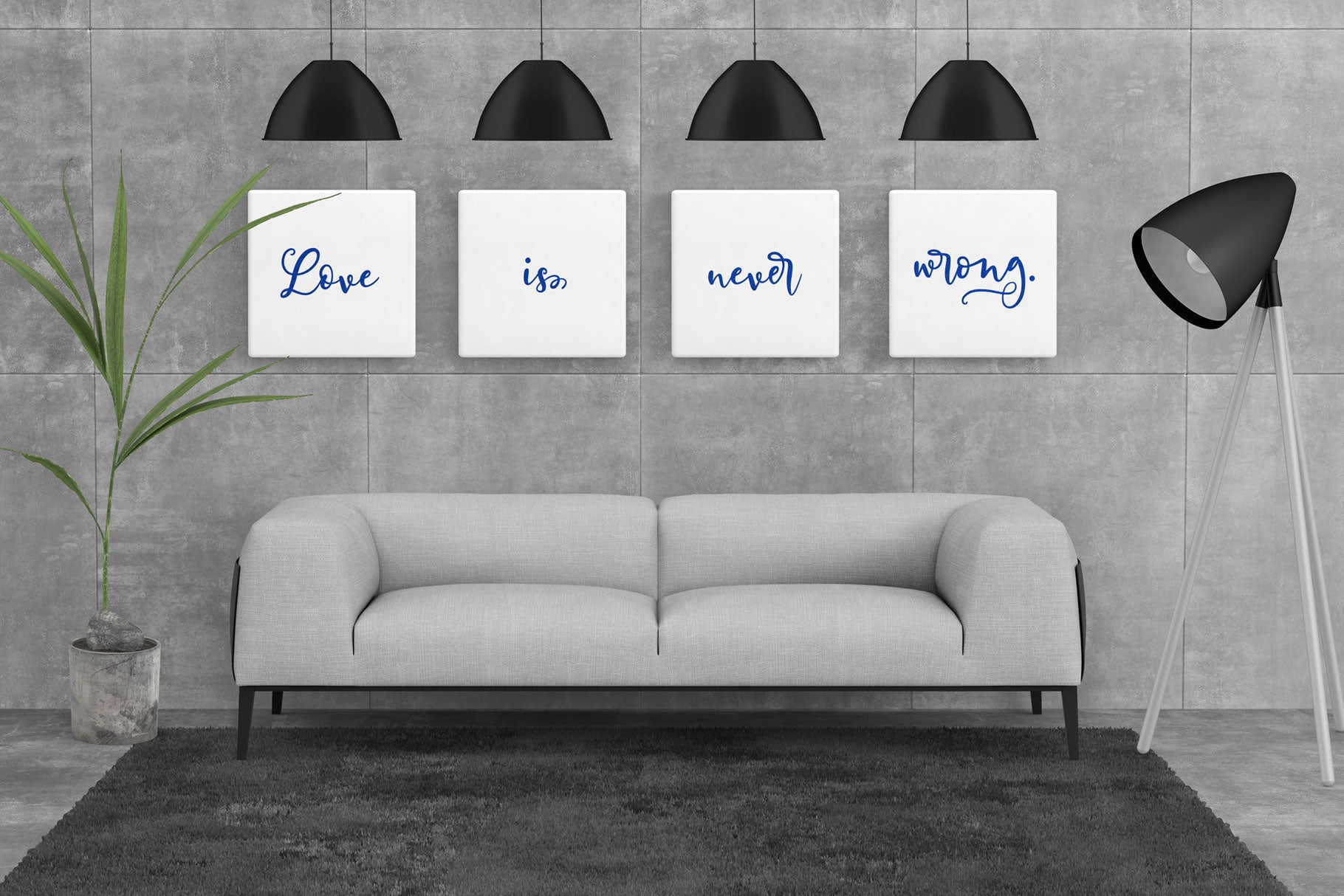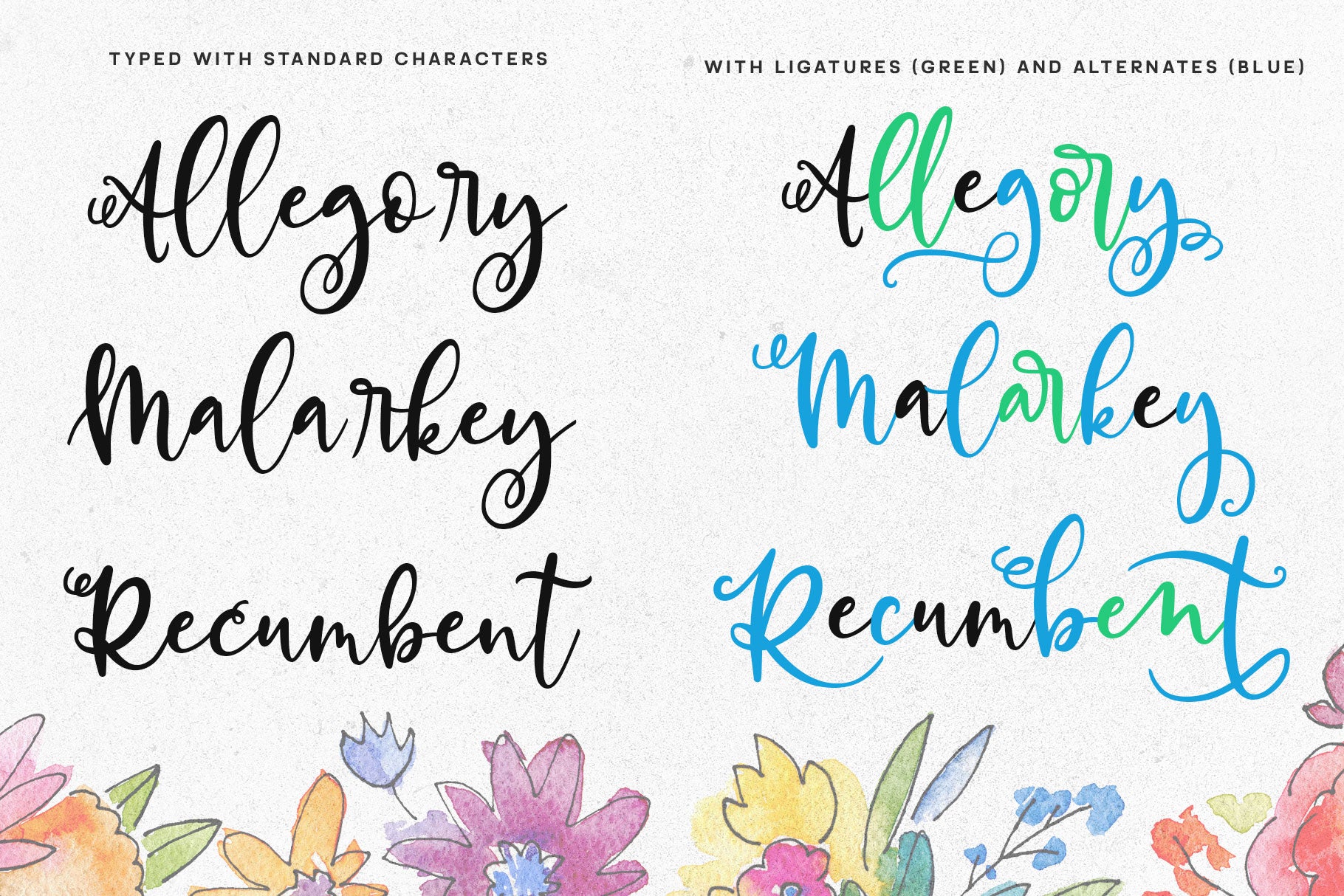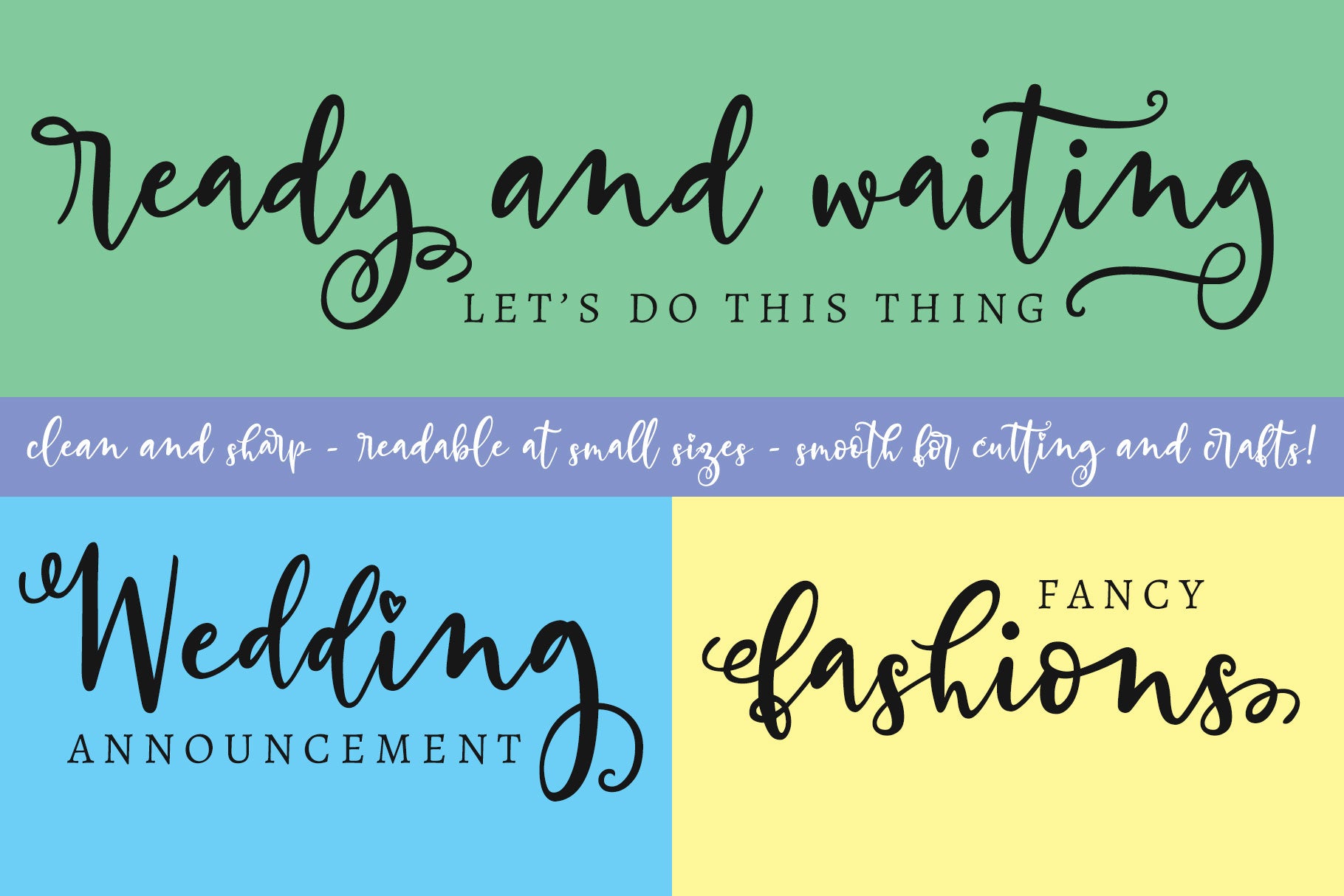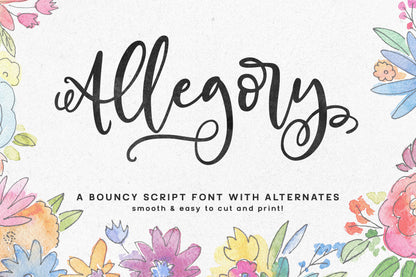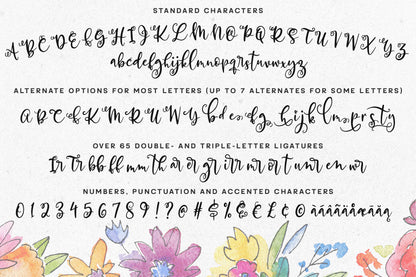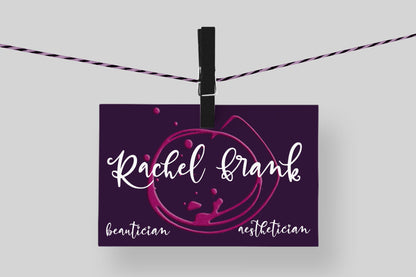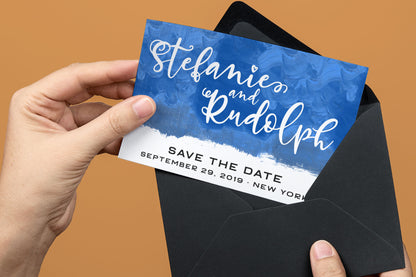
Allegory is a connecting script font with a ton of swoop, bounce, and flair! It's hand-drawn, and extensively cleaned up so that it's smooth and sleek at any size.
The base alphabet starts out fun, but then things get even more exciting when you look at the alternates and ligatures. There are over 65 multi-letter ligatures to make sure letters flow well into each other, and over 100 alternate characters so you can add variety and flourish to your design. (And of course, everything is properly PUA-encoded for super easy access.)
Allegory features:
- The basics, of course: A-Z, a-z, 0-9, and tons of punctuation;
- Over 65 ligature sets for smooth letter connections (coded to standard ligatures);
- Over 100 alternates for variety (coded to stylistic set 01 through stylistic set 08);
- Approx. 200 extended and accented characters for Latin language support;
- Everything fully PUA-encoded for easy access in all character maps and programs!